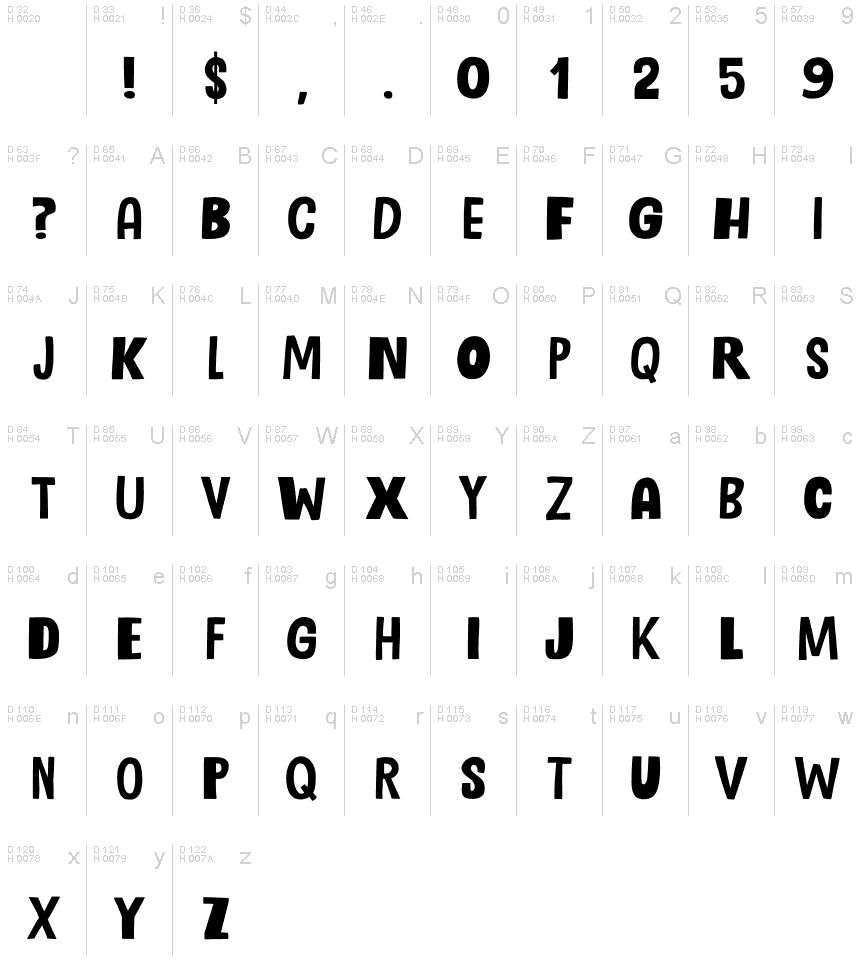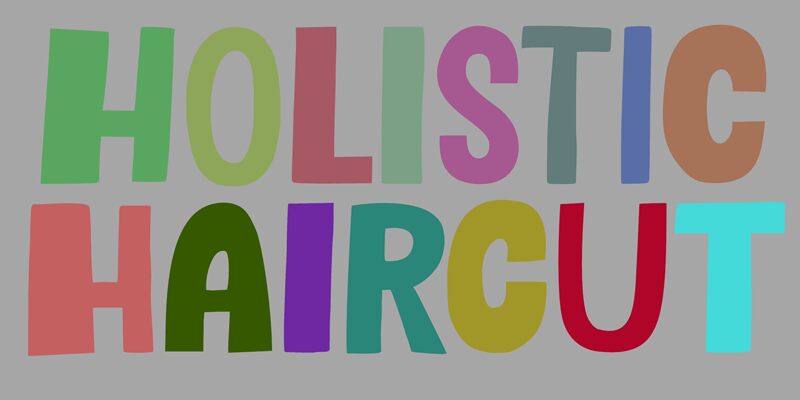
Holistic Haircut DEMO Regular
Holistic Haircut, a bold and eccentric display font designed by D K, is your go-to choice for projects that require a touch of playfulness and creativity. Its comic style adds a whimsical touch to any design, making it perfect for children's book covers, animated movies, and quirky logo designs. With its bold weight, this font demands attention and is sure to make a statement in any project. Whether you're designing posters, packaging, or even social media graphics, Holistic Haircut will bring an element of fun and originality to your work.